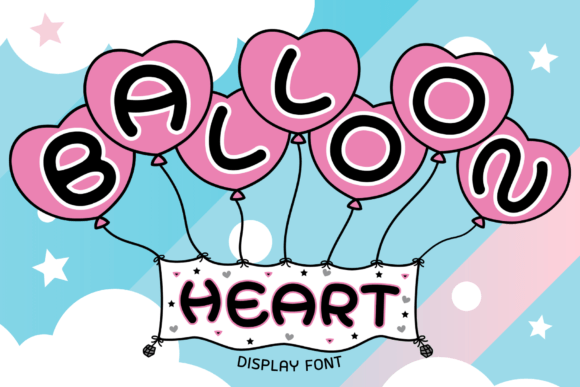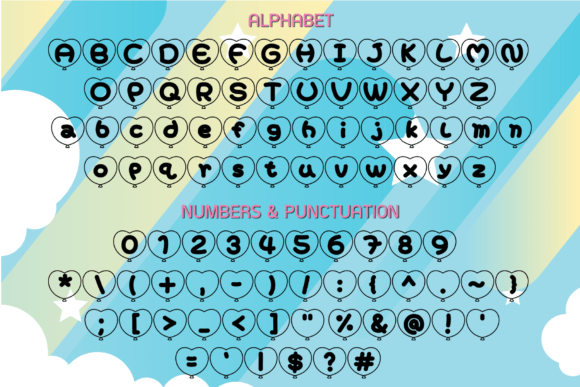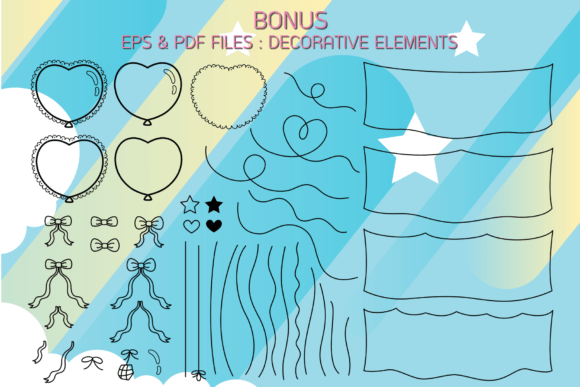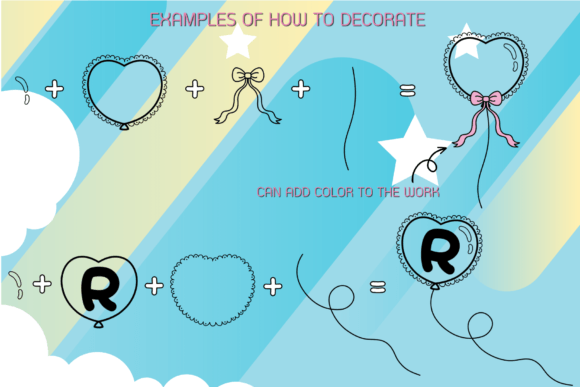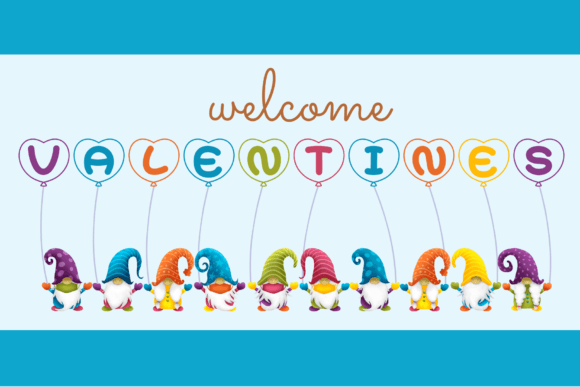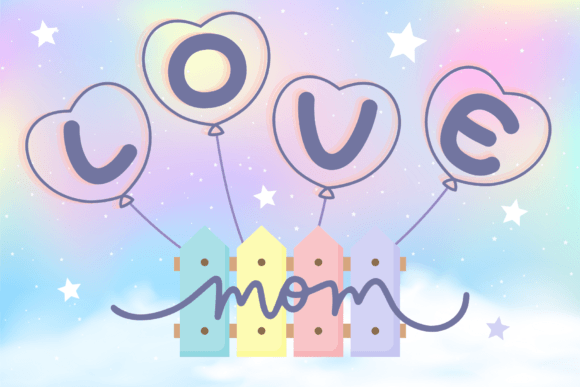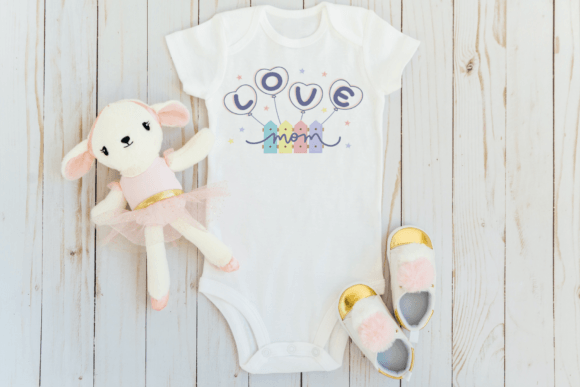
Get Ready to Pop with Joy: Introducing the Balloon Heart Font
Remember the excitement of planning a birthday party as a kid? The thrill of choosing the perfect decorations, the perfect cake, and the perfect invitations? It’s that same sense of joy and playfulness that the Balloon Heart Font embodies. This delightful decorative display font is the perfect addition to any celebration, adding a touch of whimsy and fun to your designs.
With its cheerful and bright personality, the Balloon Heart Font is ideal for creating eye-catching birthday party invitations, posters, decorations, banners, and more. Its versatility makes it a valuable asset for designers looking to add a pop of color and personality to their projects. Whether you’re a professional designer or a DIY enthusiast, the Balloon Heart Font is sure to bring a smile to your face and inspire your creativity.
Key Features of Balloon Heart Font
- Unique Characteristics: The Balloon Heart Font features a playful, whimsical design with heart-shaped balloons, making it perfect for Valentine’s Day and other festive occasions.
- Font Style: Offers a bold and italic font style, adding versatility to its use in various design applications.
- Language Support: Supports multiple languages, including English, Spanish, French, German, Italian, and more.
Designer Review: Balloon Heart Font
I recently had the chance to work with the Balloon Heart Font, and I must say it’s a unique and playful addition to any design project. ✨ The font’s whimsical, hand-drawn feel makes it perfect for creating a sense of childlike wonder or romance in your designs.
- ✨ Unique, hand-drawn feel that adds a touch of personality to designs
- ✨ Perfect for creating a sense of whimsy or romance in your designs
- ✨ Can be used for a variety of design projects, from children’s products to wedding invitations
- ⚠️ Limited font sizes and weights, which can make it difficult to use for larger or more complex designs
- ⚠️ May not be suitable for designs that require a more formal or professional tone
- ⚠️ Some characters may not be available in the font, which can be a problem for designers who need to use specific characters in their designs
The Balloon Heart Font is a fun and creative addition to any design project. While it has some limitations, it’s perfect for designers who want to add a touch of whimsy or romance to their designs. With a little creativity and planning, you can use this font to create truly unique and memorable designs.
Tips for Getting the Most Out of the Balloon Heart Font
Use the Balloon Heart Font to add a playful and whimsical touch to your designs. Experiment with different font sizes, colors, and combinations to achieve the desired effect.
The Balloon Heart Font is commonly used in designs that require a playful and romantic touch, such as:
– Wedding invitations and decorations
– Valentine’s Day and anniversary designs
– Children’s party invitations and decorations